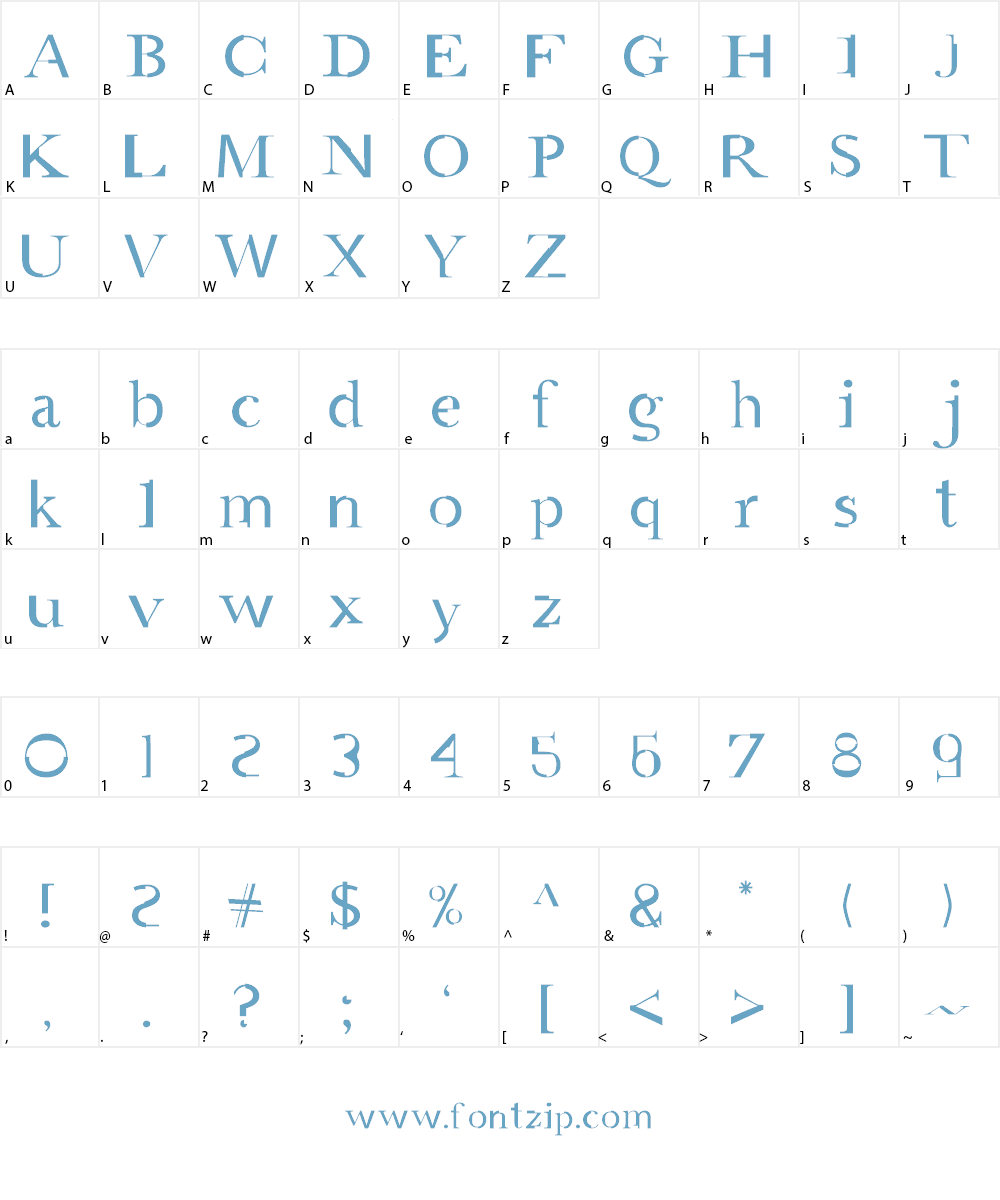
A marriage of Times and Helvetica gave birth to AMGaea font. An experimental font that has a strong personality while still keeping readability at a good level.